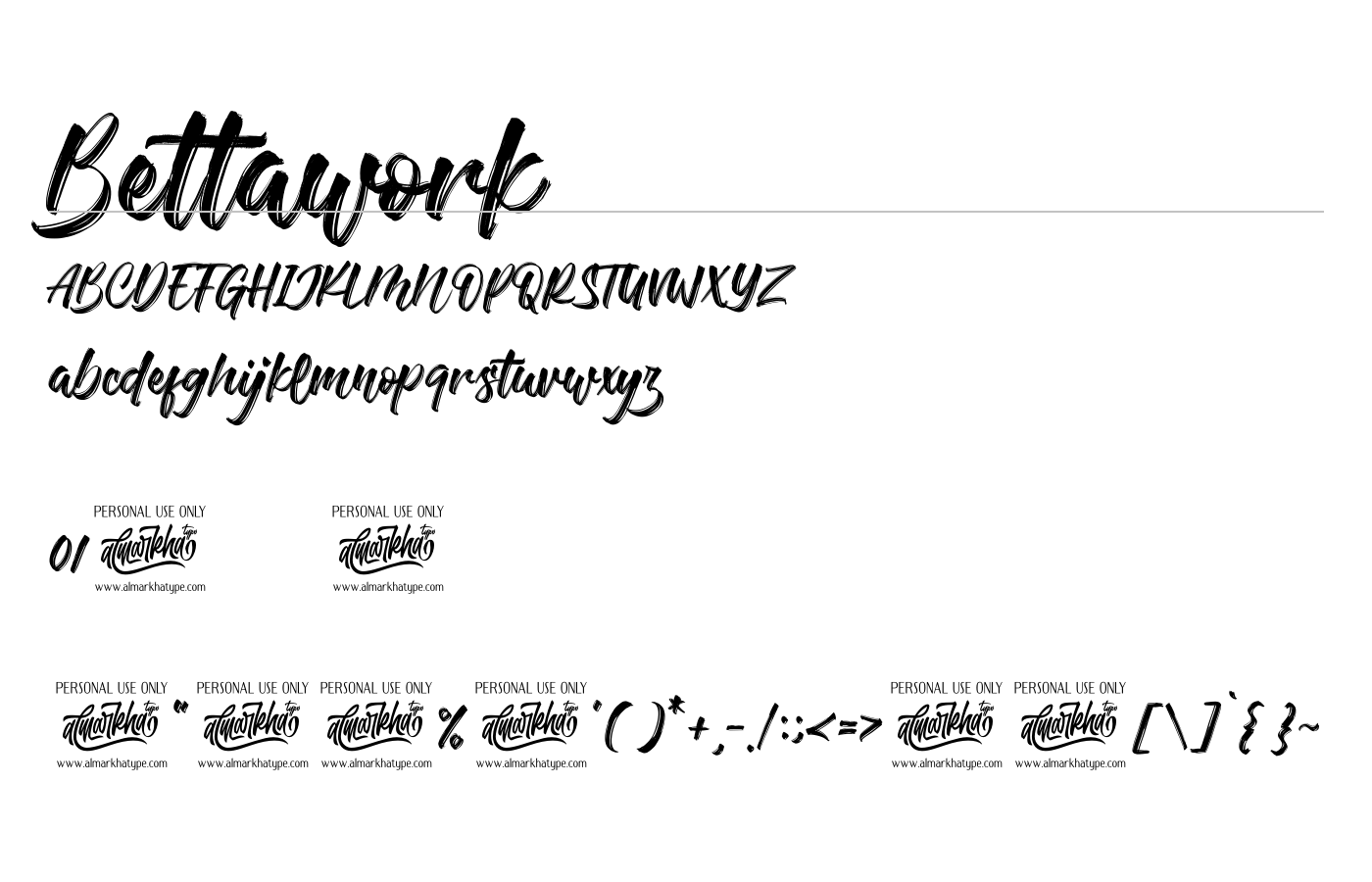
Bettawork is a bold and expressive script font with a lively brushstroke texture that gives it a hand-painted feel. Its fluid, energetic letterforms convey creativity and personal touch, making it ideal for trendy branding, invitations, and artistic projects that seek a dynamic and modern vibe. This font works best in large sizes where its detailed, textured strokes can truly shine and add personality.
Bettawork Font
About Bettawork Font